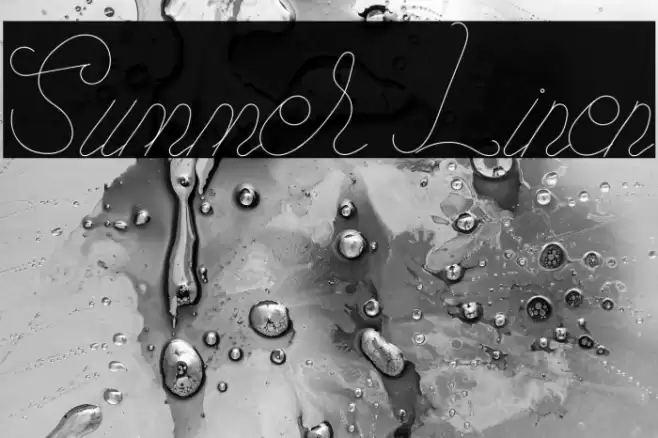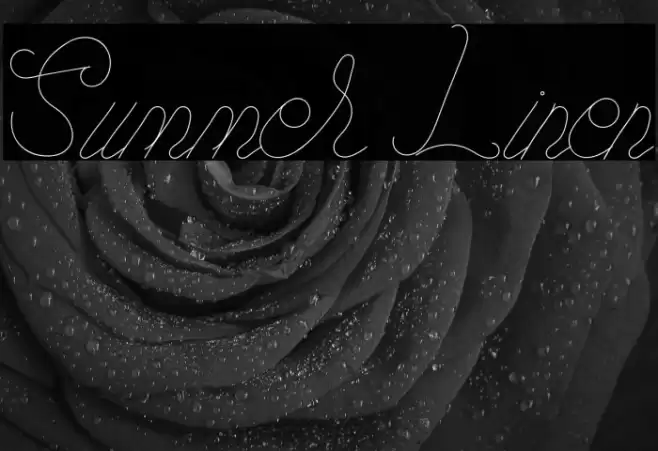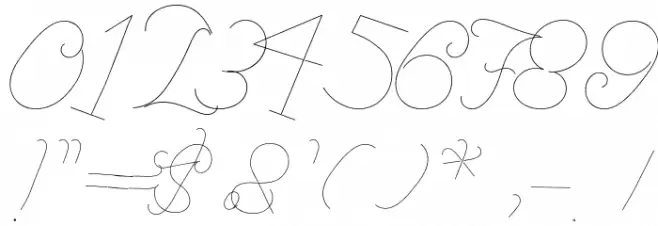
Summer Linen Font
Summer Linen Description
This elegant script font features delicate, flowing lines with a handwritten quality. The characters are interconnected with smooth, continuous strokes, giving it a graceful and sophisticated appearance. The uppercase letters are ornate, with subtle flourishes that add a touch of whimsy, while the lowercase letters maintain a more restrained elegance. The numerals and special characters are consistent with the overall style, offering a cohesive look. This font's thin strokes and airy design make it ideal for projects that require a touch of refinement and elegance.
A delicate, flowing script font with elegant, interconnected strokes from Regular fonts.
- Font: Summer Linen
- Proposed Projects: Ideal for wedding invitations, elegant branding, personal stationery, and decorative quotes.
- Weight: Light
- Overall Style: Elegant, Sophisticated
- Use Case: Logos, Invitations, Decorative Text